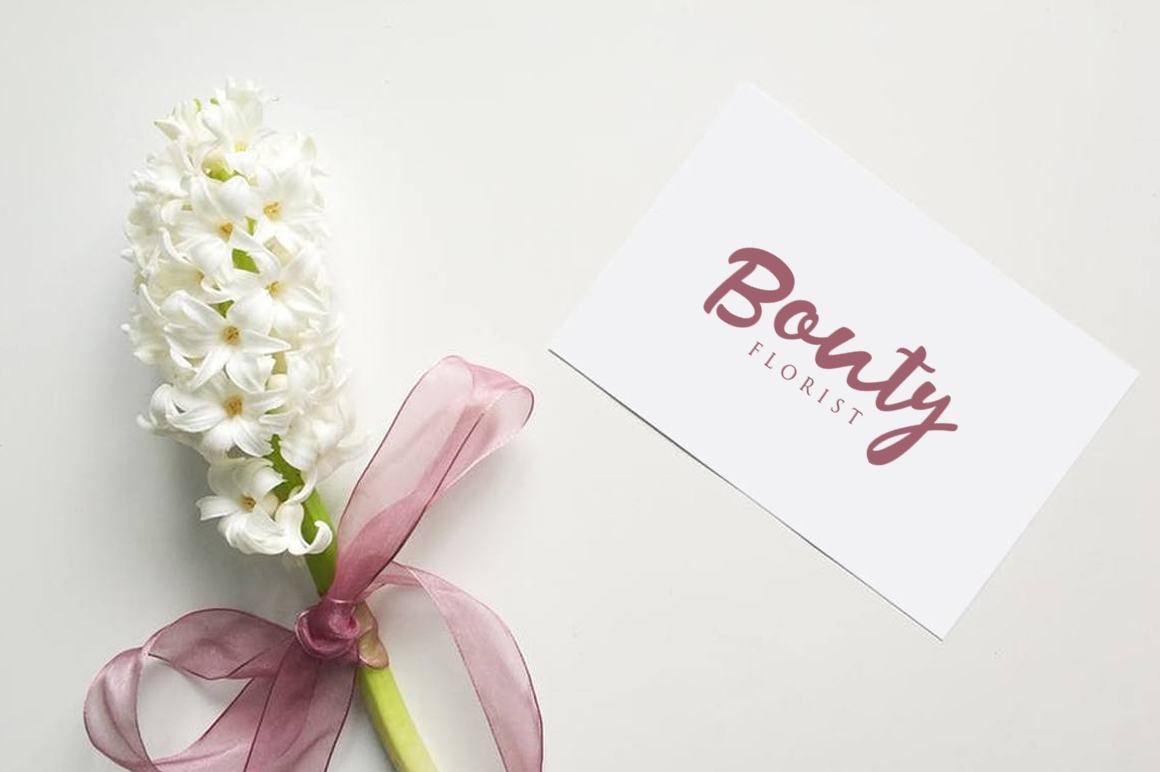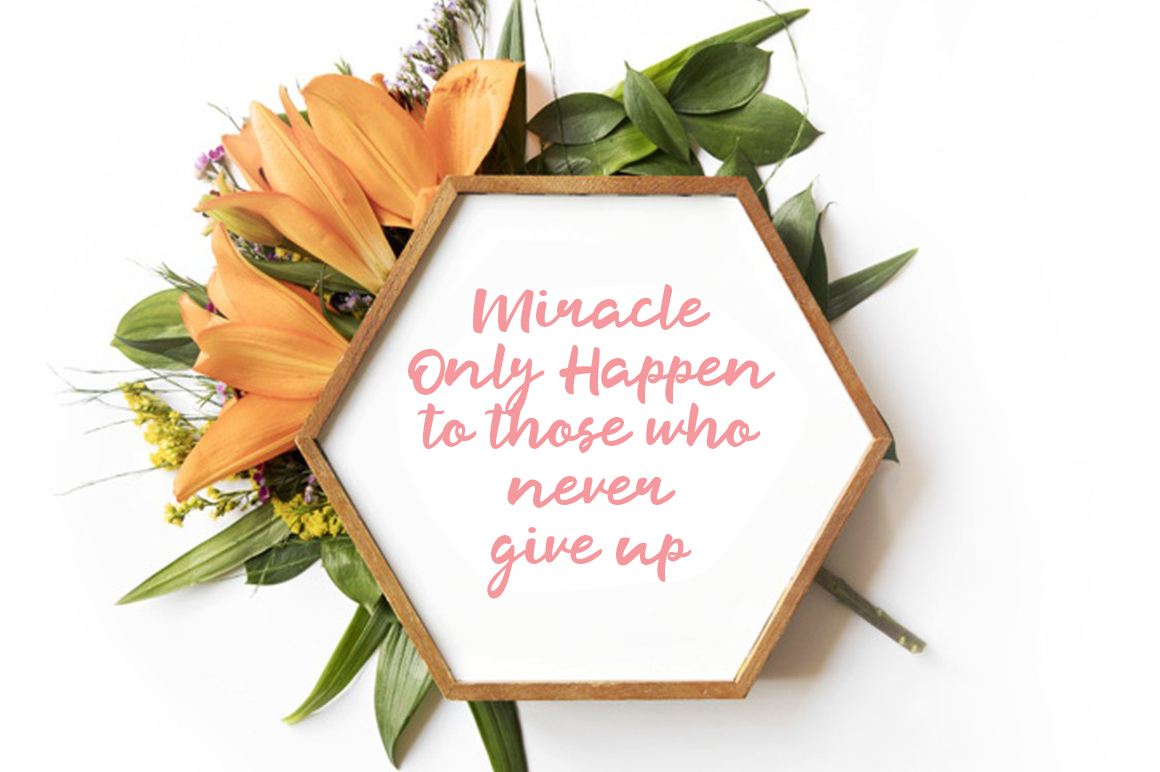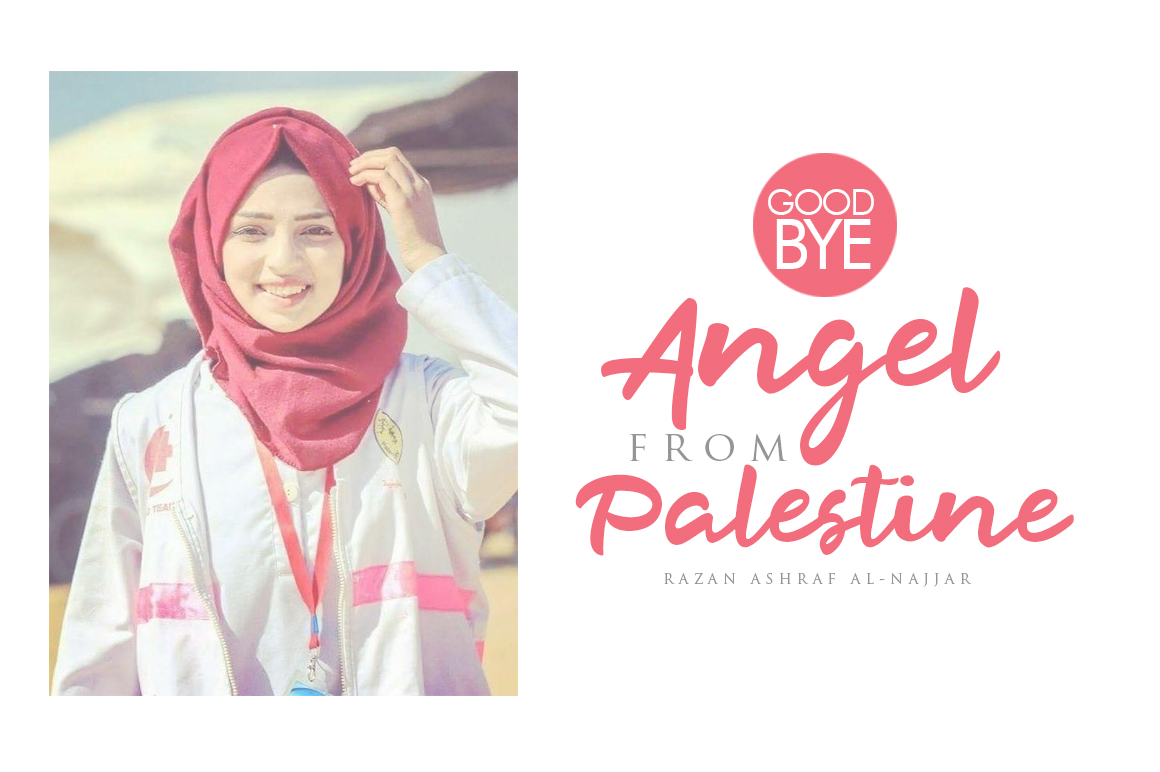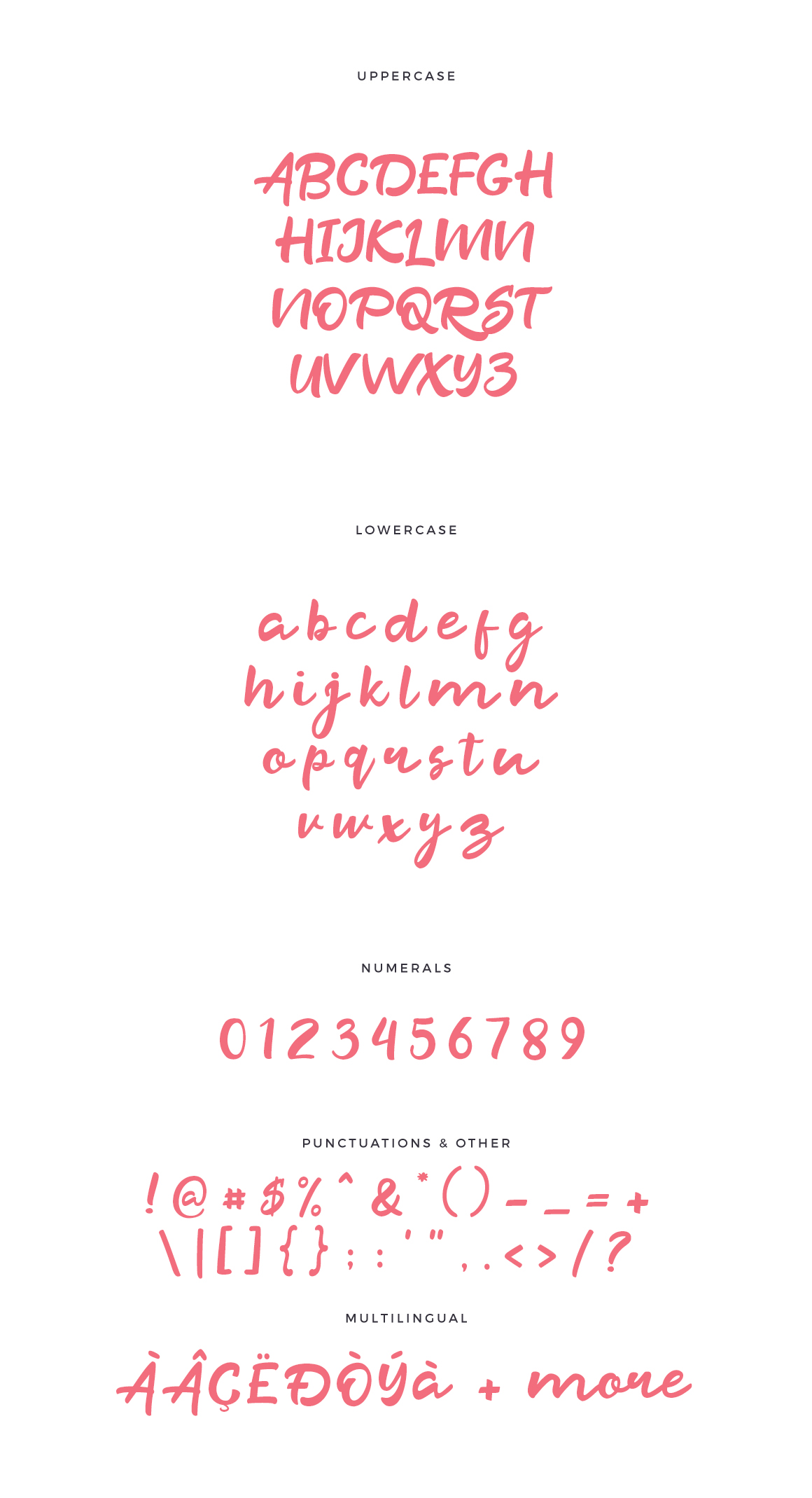
Razan Script Free Font
Razan Script Free Font is a clean and professional modern script font. Use it for ads, logos, branding, or anything that you’ll need. This is free for commercial use so feel free to use it to prosper. This free typeface was designed by a talented Rizal Khurasan.